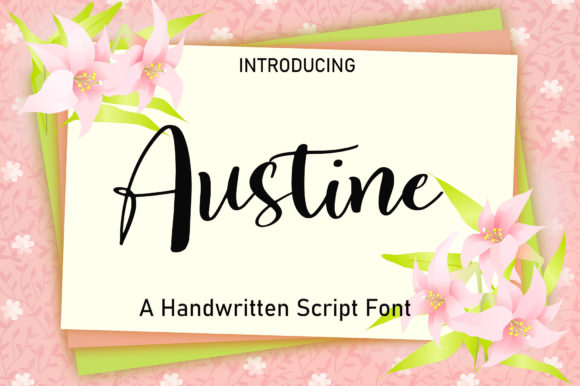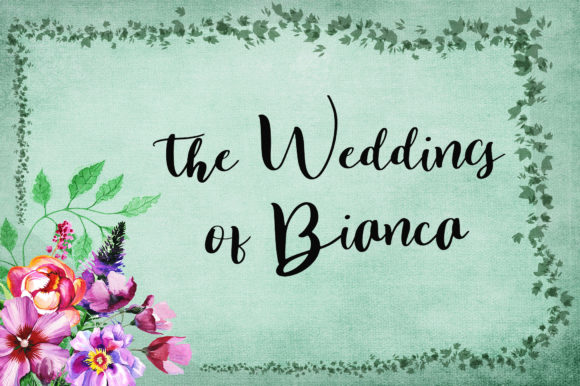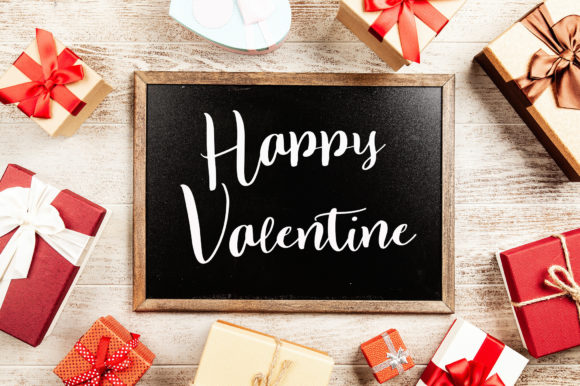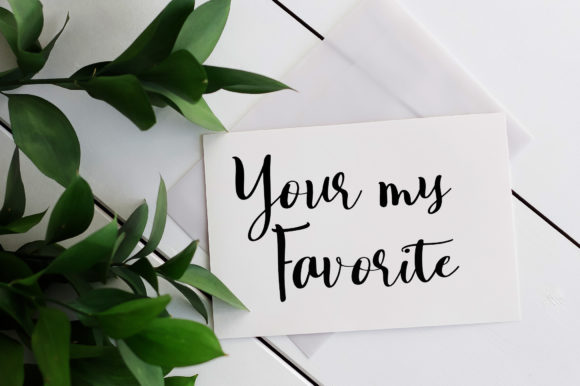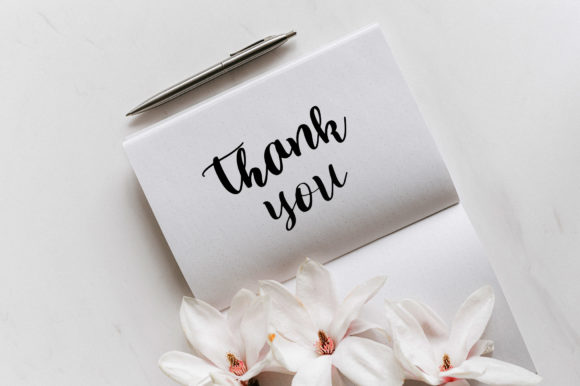
About Austine Font
Austine is a stylish and incredibly elegant handwritten font. It looks stunning on wedding invitations, thank you cards, quotes, greeting cards, logos, business cards and every other design which needs a handwritten touch.